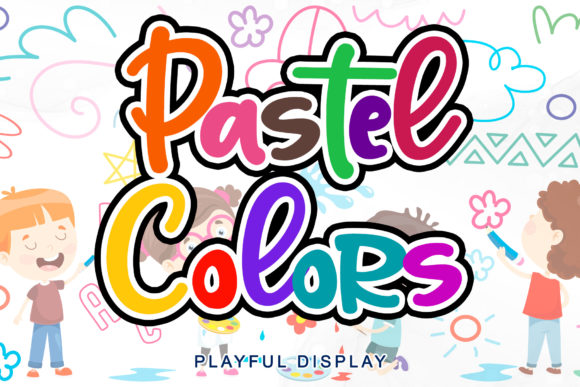
Welcome to the captivating world of Pastel Colors Font, where charm and aesthetics converge. This remarkable display font, meticulously crafted by Stefani Letter, is an ode to joyous expression and delightful designs. Allow your creativity to flourish as you explore the endless possibilities Pastel Colors Font presents.
Immerse yourself in a symphony of colors where soft hues dance harmoniously upon the canvas of your imagination. Pastel Colors Font is a visual masterpiece that beckons you to transcend the boundaries of ordinary typography. Its playful style and exceptional readability make it an ideal choice for an array of projects, inviting you to inject a touch of whimsy and cheer into your creative endeavors.
Picture the perfect Christmas card, adorned with Pastel Colors Font's warm and inviting embrace. Let your heartfelt messages shine through, enveloped in an aura of festive delight. Or envision elegant branding that exudes professionalism and approachability, capturing the essence of your brand with playful sophistication.
Journey into the realm of stationery transformed, where Pastel Colors Font dances across notebooks, journals, and planners, infusing each page with personality and inspiration. Elevate your blog design with a touch of whimsy, captivating your audience with vibrant headlines and eye-catching visuals. Unleash your inner artist and create custom art that reflects your unique style, breathing life into your imagination with every stroke.
Discover the charm of custom stamps adorned with Pastel Colors Font, adding a personal touch to your correspondence and packaging. Let your creativity take flight as you design captivating headlines that command attention and leave a lasting impression. The possibilities are boundless, inviting you to explore the depths of your creative potential.
Welcome to the enchanting realm of Pastel Colors Font, where boundless creativity awaits. Embrace the magic of this enchanting font and embark on an artistic odyssey that will leave you breathless.